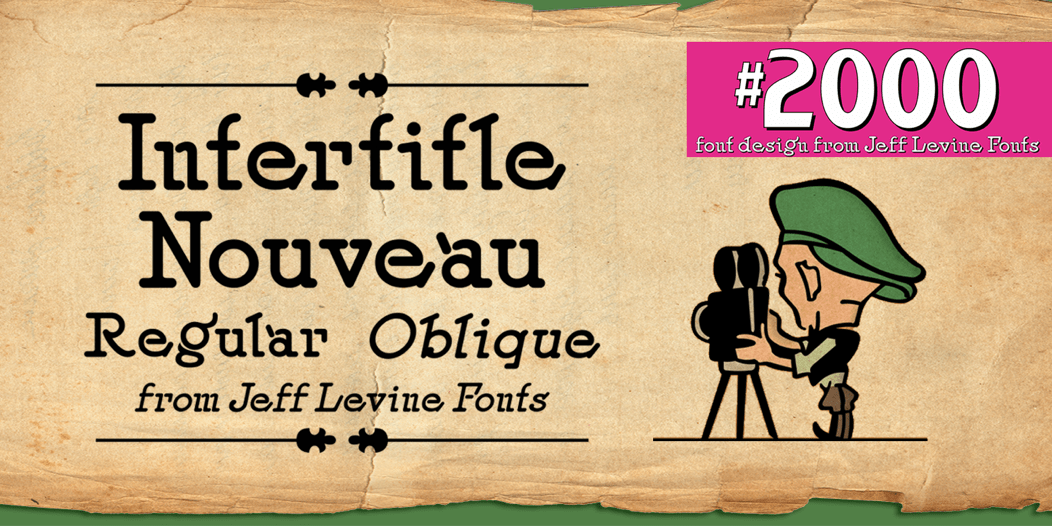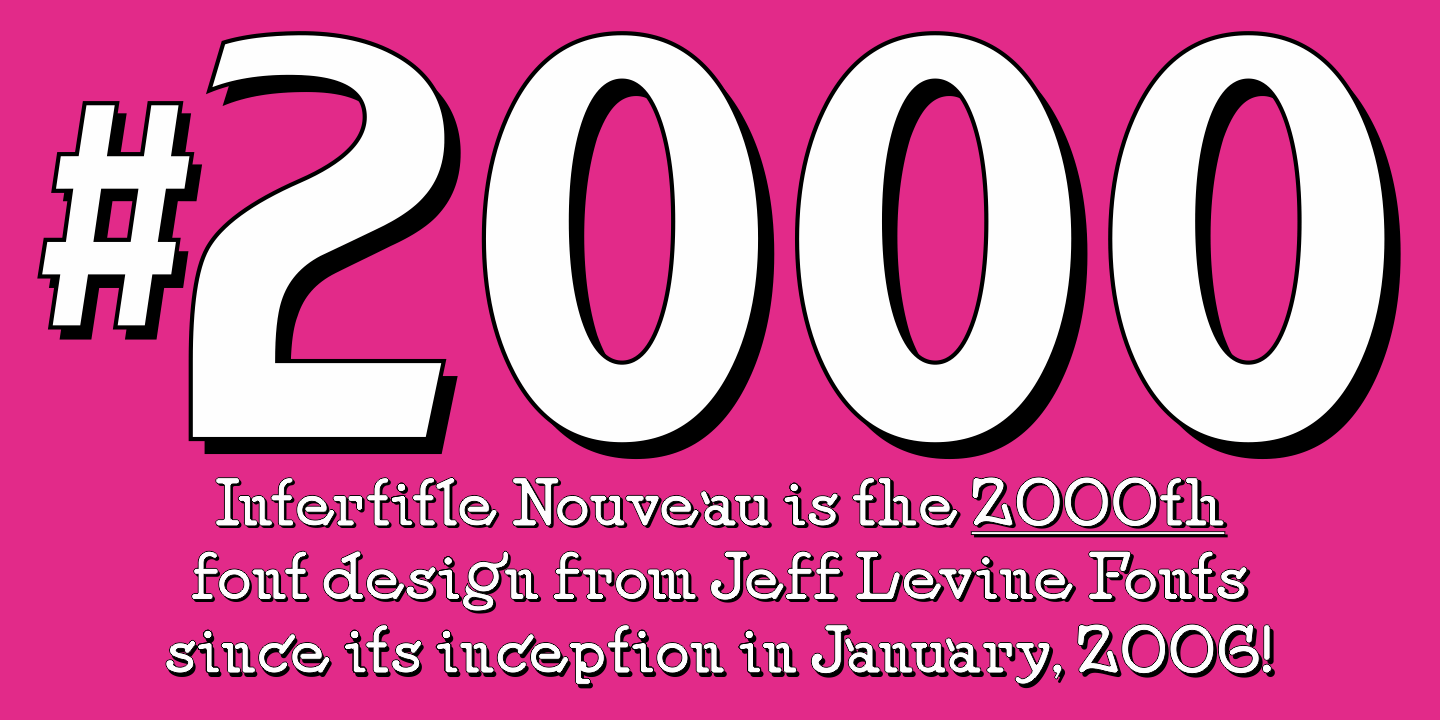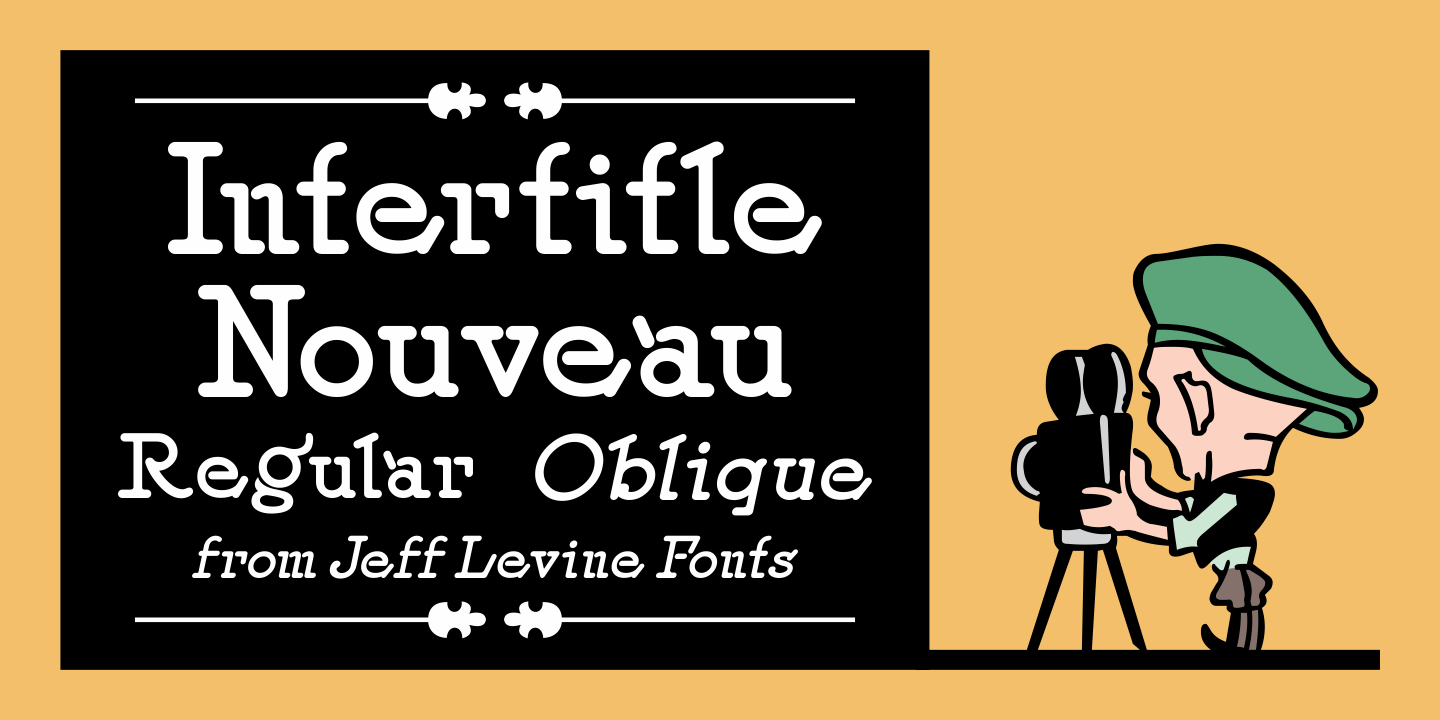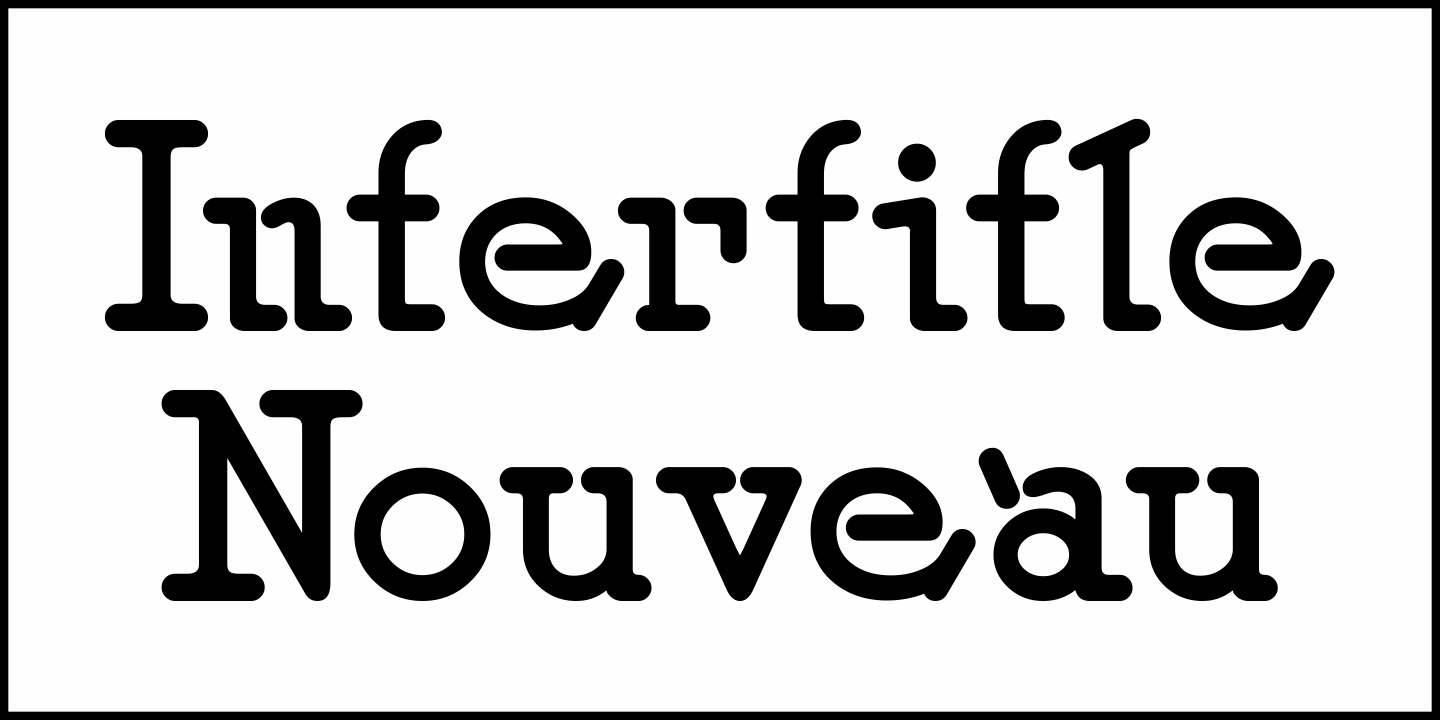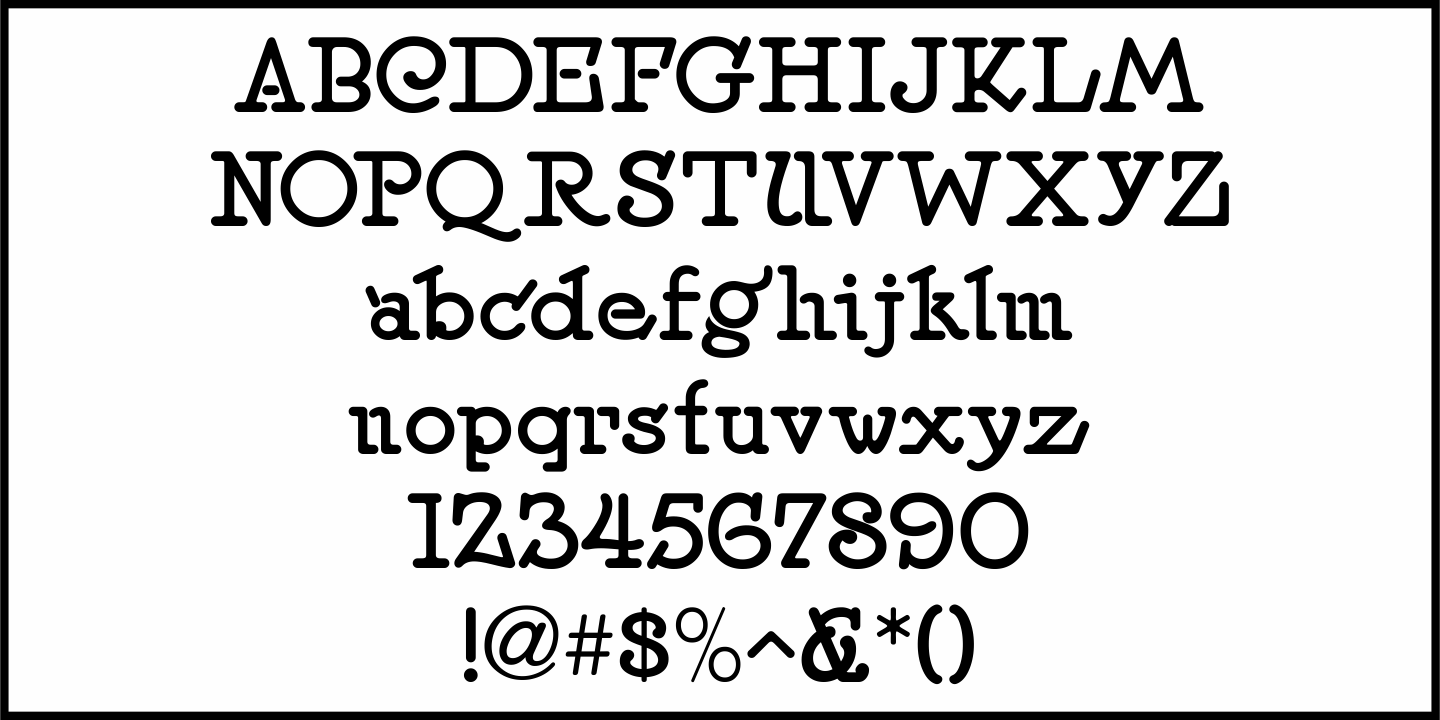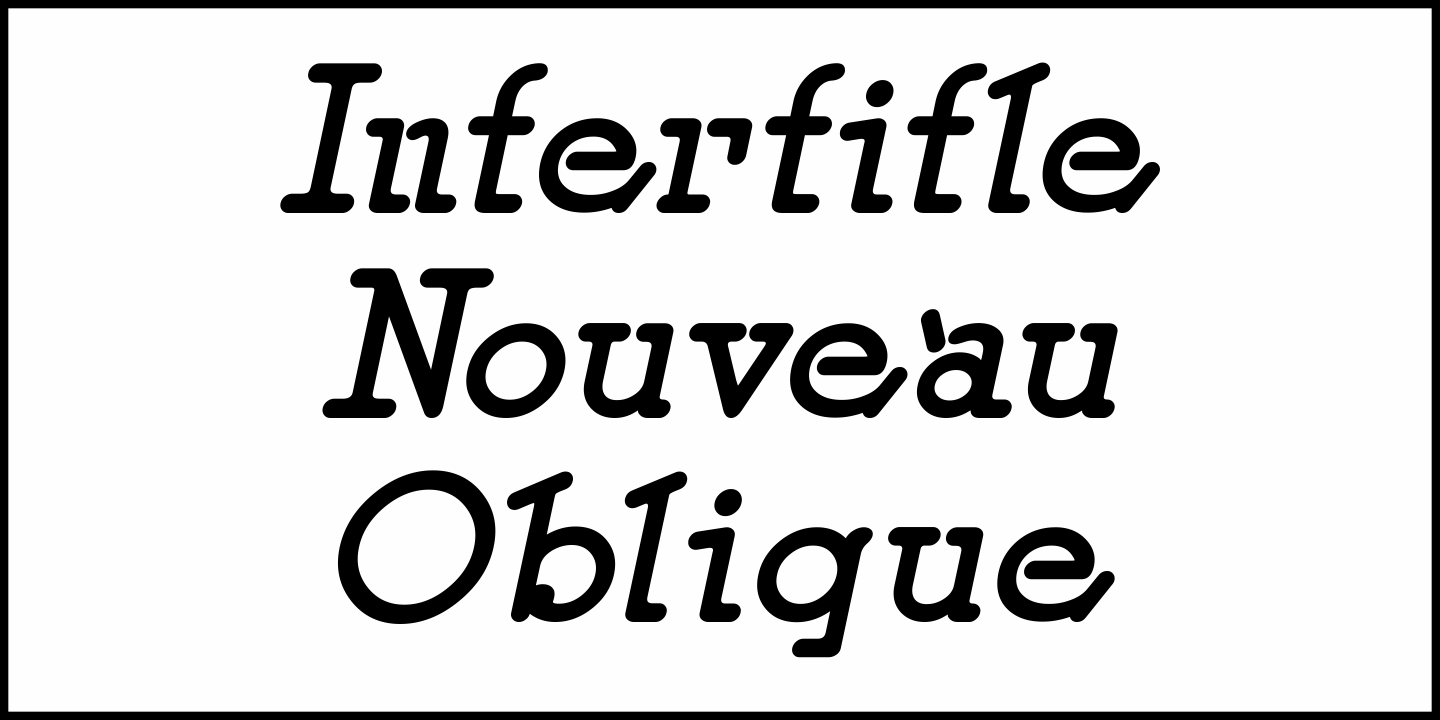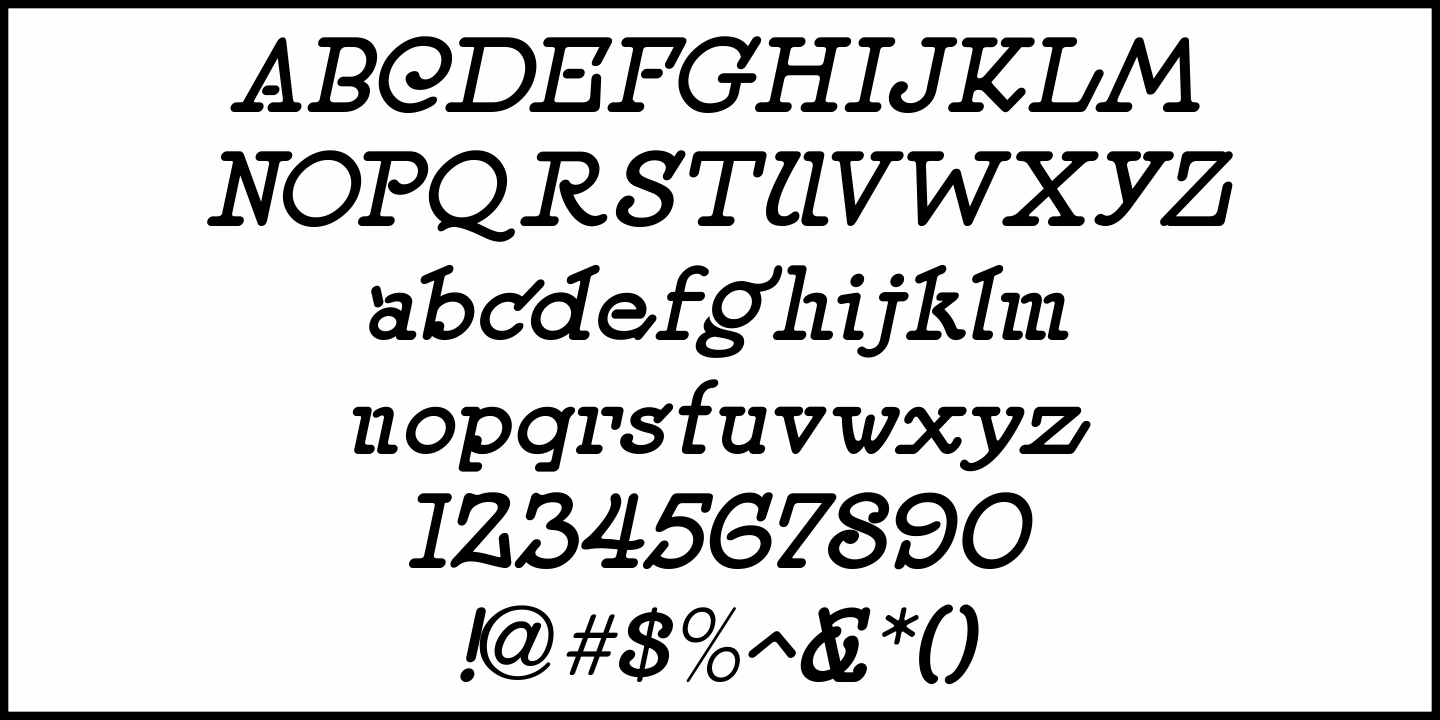
Intertitle Nouveau
Intertitle Nouveau JNL – available in both regular and oblique versions – was originally an alphabet produced by a round lettering nib, and was first shown in the 1927 edition (later reprinted in the 1960 edition). It is reminiscent of the lettering used on intertitle cards of the silent film era.
This font marks an amazing milestone - the 2000th release by Jeff Levine Fonts since its inception in January of 2006.